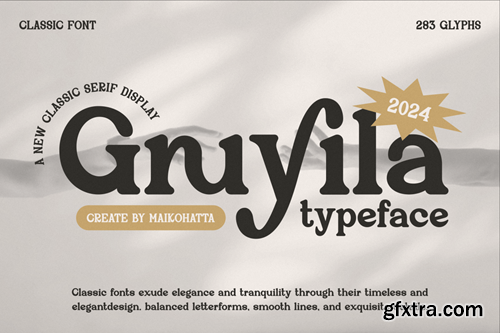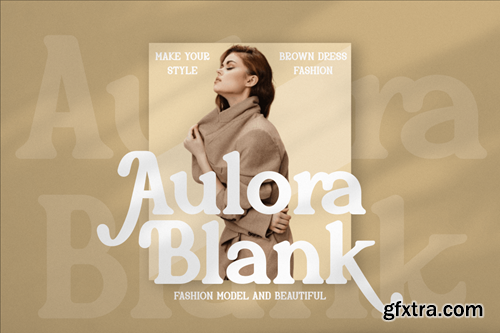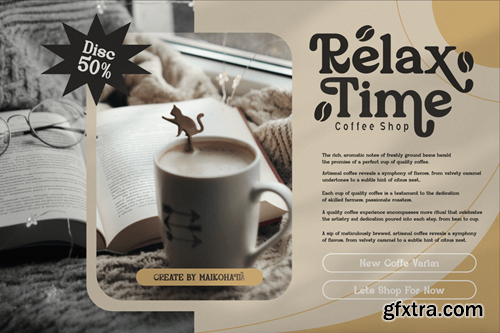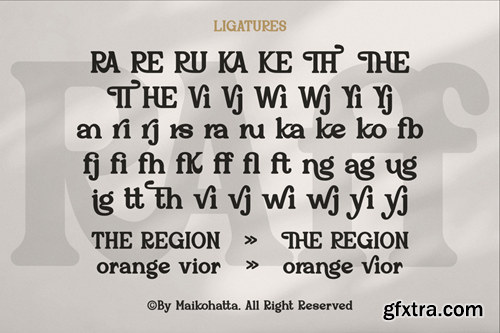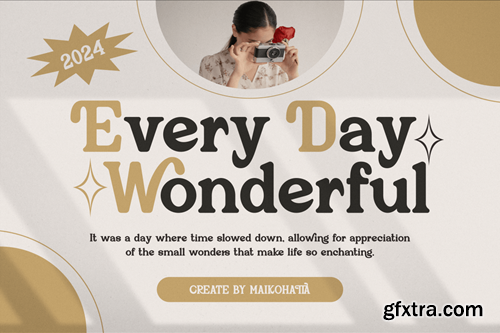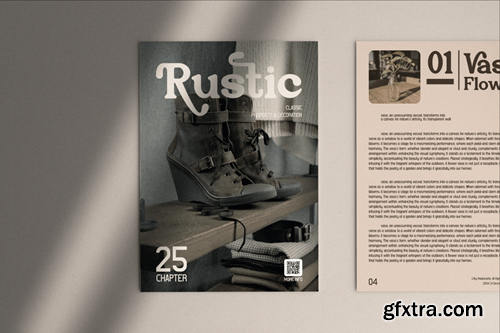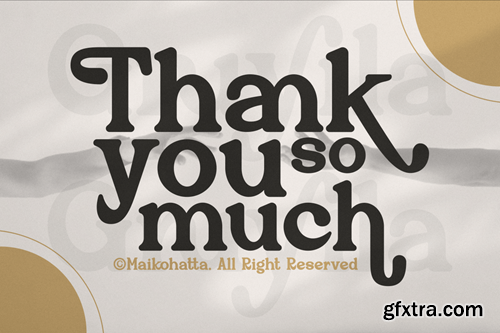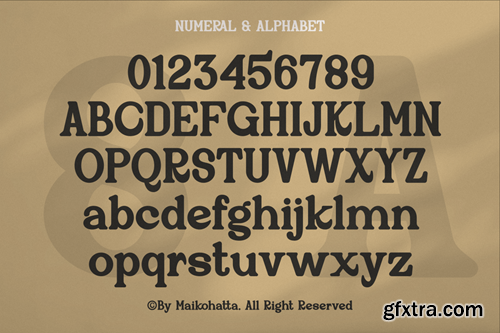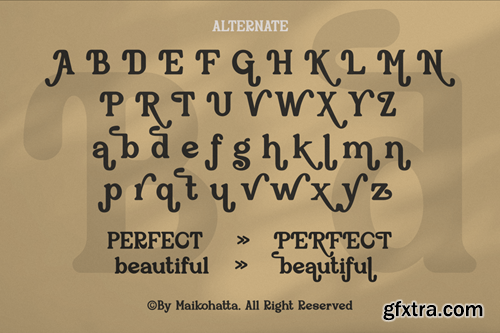
郭里雅 - 经典衬线字体V95DTZ3
Gruyila - Classic Serif Typeface V95DTZ3
Gruyila - Classic Serif Typeface
Introducing our new product Gruyila Classic Serif Typeface
This font has a series of small or decorative projections called serifs at the ends of its characters. Serifs provide a more formal, classic, and easy-to-read appearance to printed text. Serif fonts are often used in formal documents, books, and print publications because of their good legibility at small text sizes.
• Uppercase
• Lowercase
• Multilingual
• Ligature
• Alternate